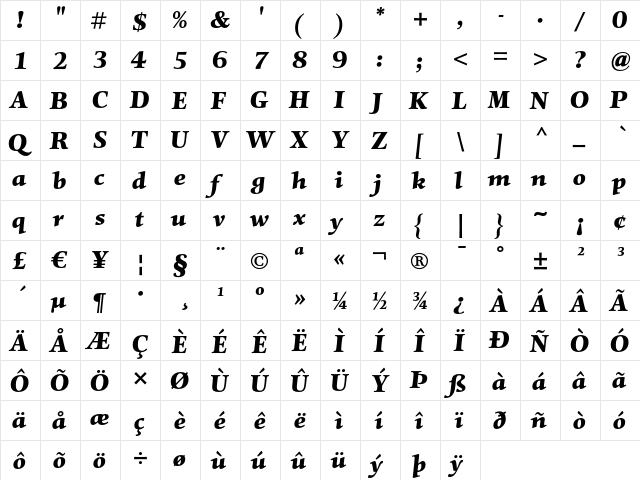
Mentor Black Italic
Design Context for Mentor Typeface
Mentor takes a measured approach to typography — its balanced proportions and neutral character make it a reliable workhorse for both digital and print work. Its italic angle brings a sense of urgency and motion to the letterforms.
Pro Tip: Use Mentor for emphasis, pull quotes, and subheadings where its slanted energy can add rhythm to the layout.